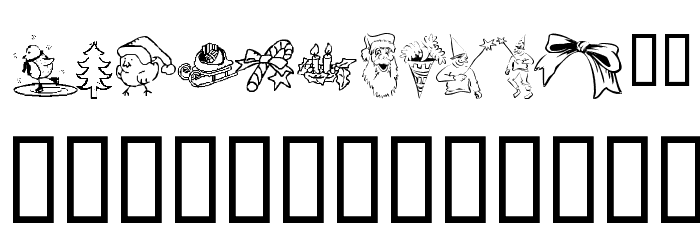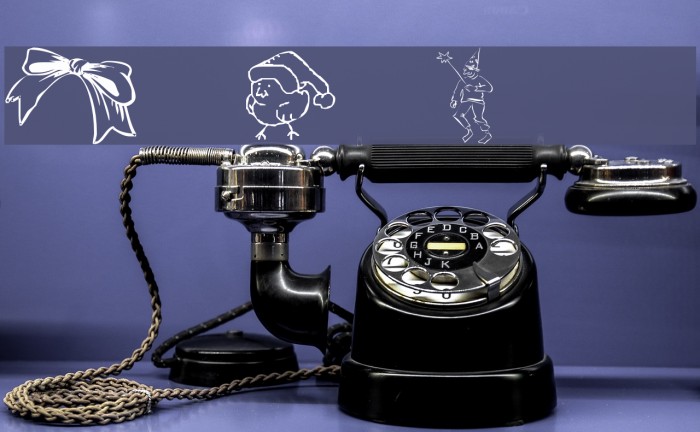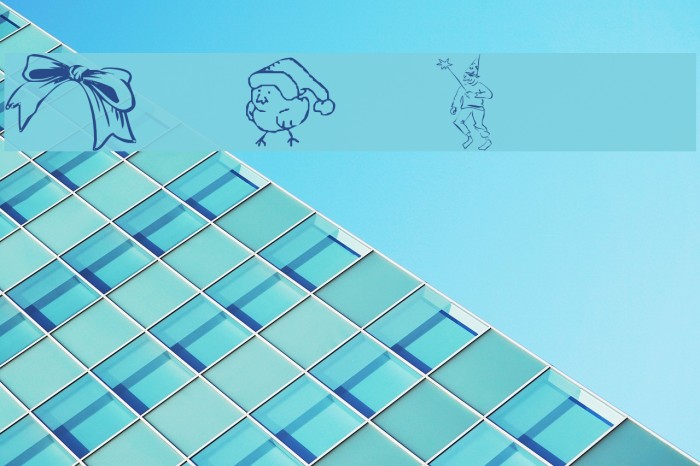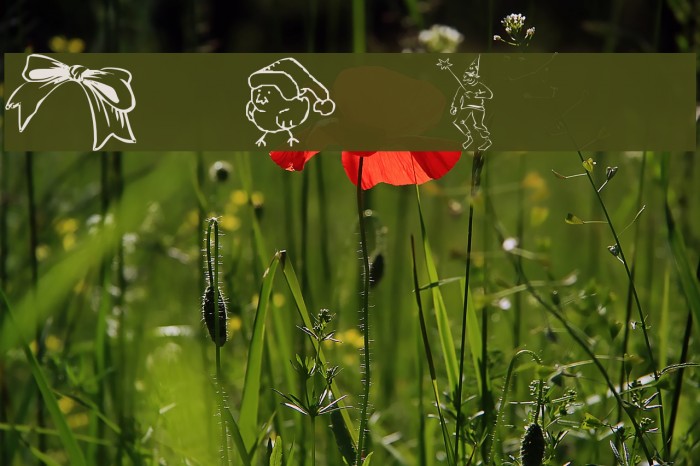
KR Christmas Jewels 2005 3 Font
This is a decorative font featuring a series of Christmas-themed illustrations. Each character is represented by a unique holiday icon, such as Santa Claus, Christmas trees, candy canes, and festive bows. The style is playful and whimsical, capturing the essence of the holiday season with intricate line art. These icons are perfect for adding a festive touch to any design project. The font is not intended for traditional text but rather for decorative purposes, making it ideal for holiday cards, invitations, and seasonal branding.
A decorative font with Christmas-themed illustrations for festive designs.
- Proposed Projects: Ideal for holiday cards, festive invitations, seasonal branding, and decorative projects.
- Use Case: Decorative elements, holiday-themed projects.